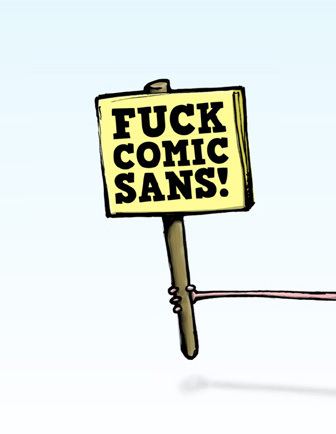
HVD Comic Serif Pro by Hannes von Döhren is a free cartoon slab serif with oversized weight and a cheerfully uneven build. Its broad, blocky letters mix blunt serifs with soft bulges and slight shifts in angle, giving the lettering the handmade punch of a comic masthead cut from paper.
Packaging is its most convincing home. The dense shapes also suit posters, children's publishing, and merchandise, especially for snack brands, toy shops, or playful venues seeking a logo that can double as a chunky illustrated badge on labels, boxes, shop signs, and apparel.